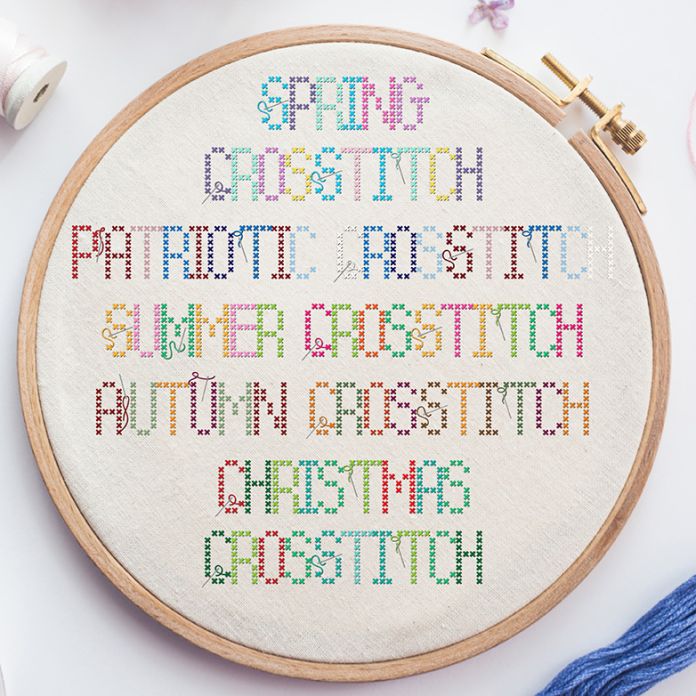
This full-color font bundle features five font full-color alphabets, all in cross stitch with needles on the uppercase. All of these font have a full alt-case with addition colors of each letter that you can access through your system's character map. These fonts works best for titles, displays, posters and more. Please note color fonts will show as black in non compatible programs. These font types are compatible with Silhouette Studio.